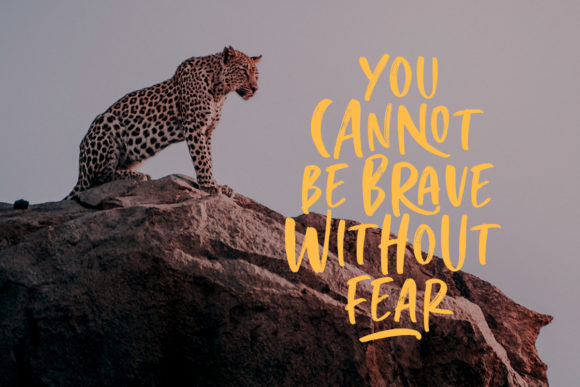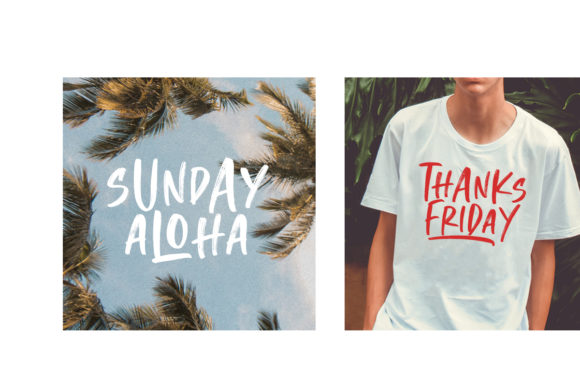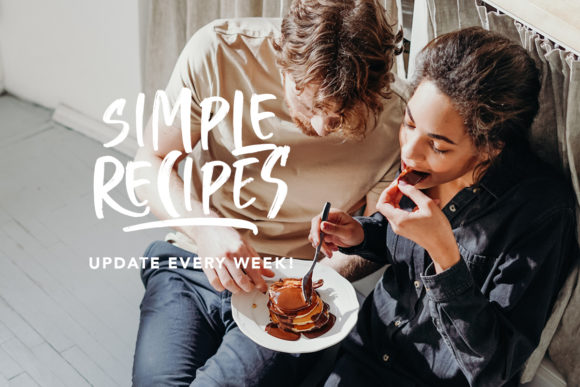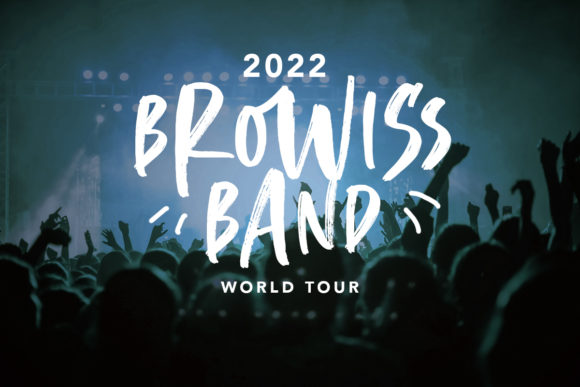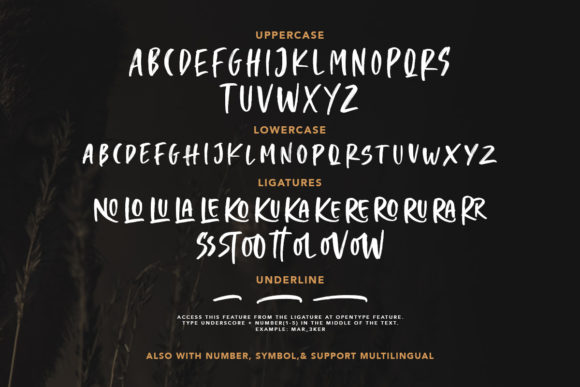
Introduction to Crooked Hooks Font
Have you ever been working on a creative project and felt like something was missing – that extra oomph that takes your design from good to great? For many designers, this is the moment when the perfect font can make all the difference. And today, we’re excited to introduce you to a game-changing design resource: the Crooked Hooks Font.
Designed with an outstanding brush pen, this bold, chunky charactered display font is the perfect addition to any creative project. With its high-quality aesthetic and versatility, the Crooked Hooks Font is sure to elevate your designs to new heights. Whether you’re working on a graphic project, a logo, or even a social media graphic, this font is sure to bring your ideas to life.
Key Features of Crooked Hooks Font
- Unique, hand-drawn design with a playful and whimsical feel, making it perfect for creative projects.
- Perfect for designers, artists, and creatives looking for a unique and eye-catching font to elevate their designs.
Honest Review: Crooked Hooks Font
I recently came across the Crooked Hooks Font, and I was immediately drawn to its unique charm. As a designer, I appreciate high-quality design resources that can elevate a creative project and make it stand out from the crowd.
One of the things that I love about this font is its versatility. It can be used for a variety of purposes, from headings to body text, and it looks great on both light and dark backgrounds. ✨ The transparent background option is also a nice touch, making it easy to layer over images or other design elements.
Some of the key features of the Crooked Hooks Font include:
- High-quality design with a unique, hand-drawn feel
- Transparent background option for easy layering
- Works well for a variety of creative projects, from print to digital
Overall, I’m really impressed with the Crooked Hooks Font. It’s a great addition to any designer’s toolkit, and it’s perfect for adding a unique touch to a creative project.
The Crooked Hooks Font is ideal for a variety of creative projects, including invitations, posters, and social media graphics. Its unique and playful design makes it perfect for adding a touch of whimsy to your design.
Is the Crooked Hooks Font suitable for print or digital use?
Yes, the Crooked Hooks Font is suitable for both print and digital use. The font is optimized for high-resolution printing and can also be used for digital applications such as web design, social media, and mobile apps.